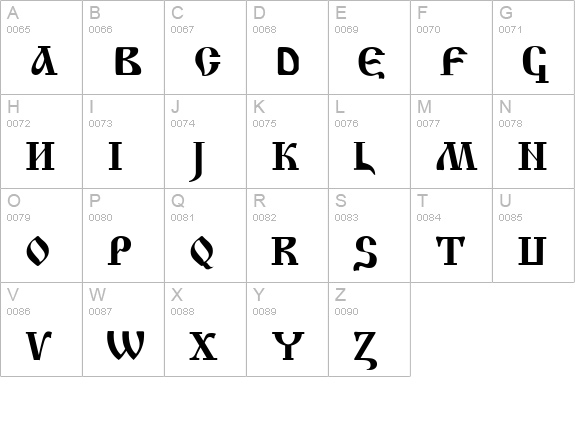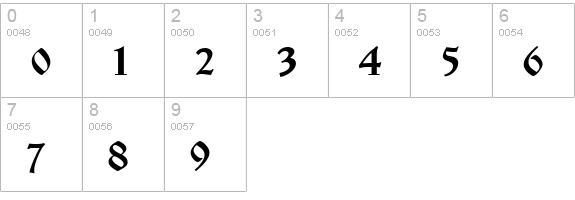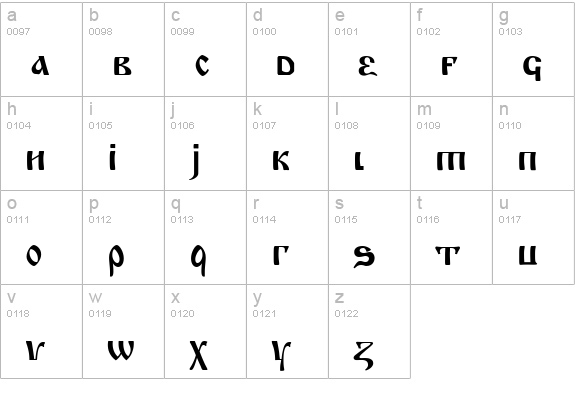
Introducing Krasni Fellows, a captivating and sophisticated font that effortlessly combines modernity with classic elegance. With its sleek and stylish letterforms, this typeface exudes a sense of refined luxury, making it the perfect choice for projects that require a touch of sophistication. Krasni Fellows stands out with its unique and graceful curves, creating a harmonious balance between tradition and contemporary design. Each character is meticulously crafted with attention to detail, resulting in a font that is both visually striking and highly legible. One of the most remarkable aspects of Krasni Fellows is that it is freely available to download at FontsMarket.com. This means that you can easily access this stunning font and use it in your personal and commercial projects without any restrictions or limitations. Whether you're a graphic designer looking to add a touch of elegance to your designs or a business owner seeking a font that exudes professionalism, Krasni Fellows is the perfect choice. With its extensive character set and versatile nature, Krasni Fellows can be used for a wide range of applications, including logos, branding, packaging, invitations, headlines, and much more. Its timeless appeal ensures that it will never go out of style, making it a valuable addition to any designer's toolkit. When it comes to typography, Krasni Fellows is a true gem. Its smooth lines and effortless sophistication make it a standout choice among other fonts. Whether used in large headlines or small body text, Krasni Fellows will always make a lasting impression. Experience the beauty and elegance of Krasni Fellows today by downloading it for free at FontsMarket.com. Discover the endless possibilities this font offers and elevate your designs to new heights. With Krasni Fellows, you have the power to create stunning and unforgettable visuals that will leave a lasting impression on your audience.